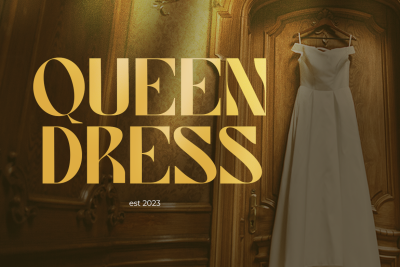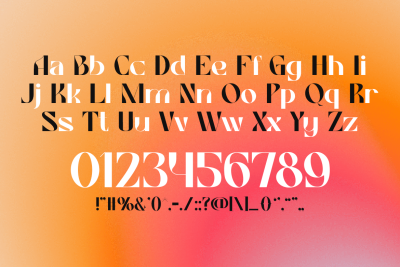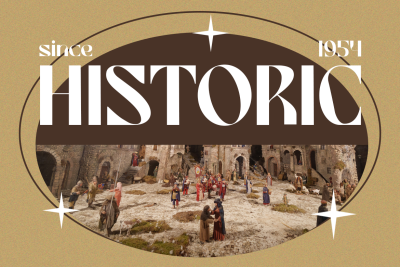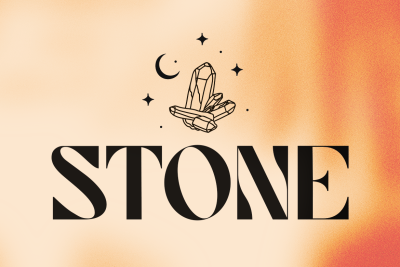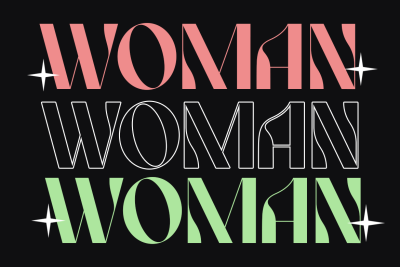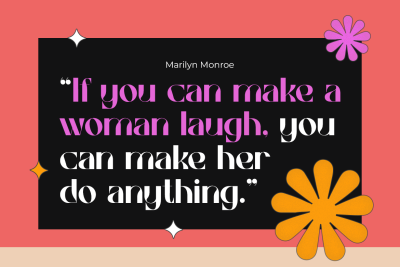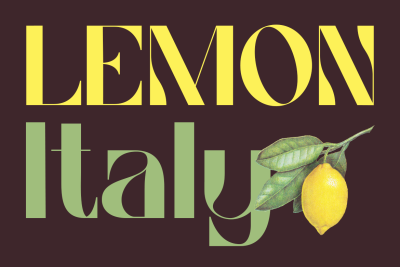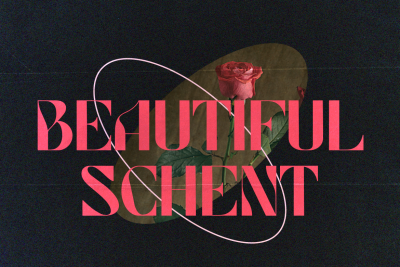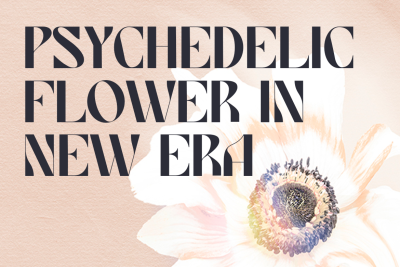
vintage font warren
WARREN
Vintage font Warren is a bold and sophisticated typeface that seamlessly blends timeless elegance with modern aesthetics. Its unique letterforms, featuring high-contrast strokes and geometric cuts, make it both versatile and visually striking. Moreover, its retro-inspired design is perfect for crafting impactful headlines, logos, and branding materials. At the same time, the font’s sleek curves and sharp edges allow you to convey luxury and professionalism effortlessly.
In addition, Warren complements minimalist and artistic designs beautifully, adding personality and charm to every project. Whether you are designing for high-end fashion campaigns, editorial spreads, or promotional posters, this font ensures your work stands out. Furthermore, its balance between vintage charm and contemporary appeal makes it suitable for a variety of creative applications. The soft, elegant vibe it exudes allows it to adapt seamlessly to both digital and print media, ensuring flexibility for diverse design needs.
Its ability to combine boldness and sophistication makes Warren highly adaptable, whether you’re looking to design for a timeless retro feel or a fresh modern aesthetic. By offering such versatility, this font proves itself to be an invaluable tool for a wide range of projects.
Vintage Font Warren Perfect For
Warren is an ideal choice for designers, businesses, and brands looking to create a strong and memorable impression. Specifically, its timeless appeal makes it a top choice for fashion brands, luxury products, and creative professionals. For graphic designers and marketers, this font offers the perfect blend of boldness and sophistication, making it an excellent option for building premium brand identities or executing high-class marketing campaigns.
Additionally, small businesses such as boutique stores, artisan cafes, or event planners can use Warren to enhance their visual identity. Its upscale yet approachable design makes it suitable for crafting logos, signage, or promotional materials that exude professionalism. It also excels in editorial layouts, packaging designs, and digital campaigns, offering a fresh and distinctive aesthetic. In conclusion, if you want to combine elegance, creativity, and modern style, Warren delivers a stunning and impactful typographic solution.
The font also appeals to industries beyond luxury and fashion, including lifestyle brands, creative agencies, and even personal branding projects. Its versatile design ensures that anyone aiming to make a bold yet sophisticated statement will find Warren a reliable and attractive choice.